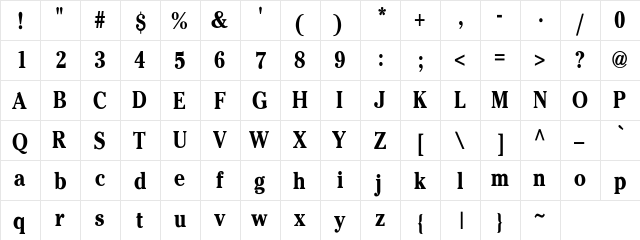
Charlie Extra Bold Regular
Design Context for Charlie Extra Bold Typeface
Charlie Extra Bold offers clean, dependable letterforms without strong stylistic allegiance, making it a practical choice for designers who need flexibility. The heavy weight commands attention and anchors typographic hierarchies.
Pro Tip: Use Charlie Extra Bold in both headline and body roles to test its range before committing to a single application.